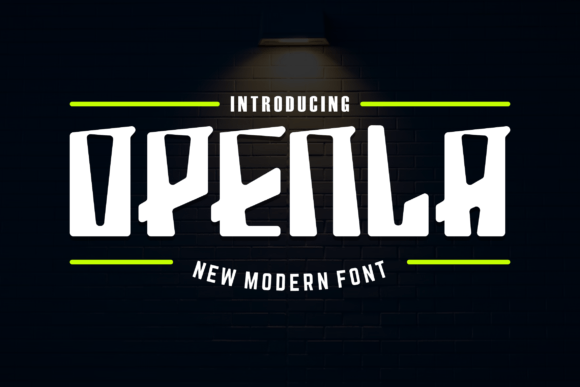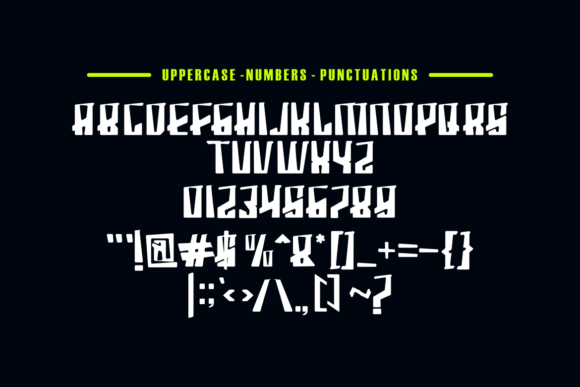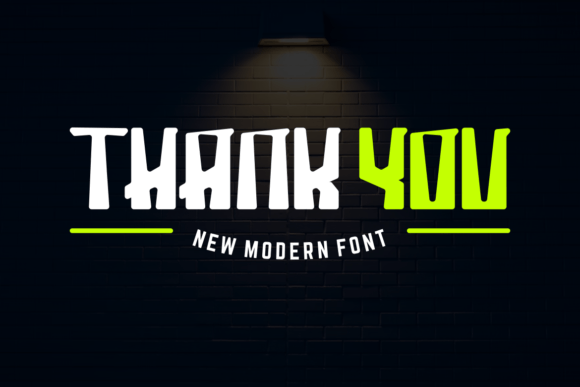
Openla
Openla: A Bold and Elegant Slab Serif Font
Openla is a bold slab serif font that combines beautiful, classy, elegant, and modern design elements. This versatile typeface is perfect for various projects, from signatures and stationery to branding and packaging design.
Key Features of Openla
• Bold Design: Offers strong, impactful letterforms.
• Elegant Style: Brings sophistication to designs.
• Modern Appeal: Features contemporary design elements.
• Versatile Application: Adapts well to numerous design contexts.
Best Uses for Openla
Thanks to its versatile characteristics, Openla works especially well for:
When using Openla in your designs, keep these tips in mind:
• Try it for headlines or display text to showcase its bold elegance.
• Use different sizes to highlight its modern features.
• Pair with simpler fonts for body text to create balance.
• Let its versatility enhance both traditional and contemporary projects.
To sum up, Openla is an excellent choice for designers seeking a bold and elegant slab serif font. Its versatility makes it perfect for a wide range of projects. Whether you’re creating wedding materials, designing logos, or developing branding packages, Openla offers the perfect blend of contemporary style and timeless sophistication.
Furthermore, Openla’s distinctive design allows it to shine in contexts where both modernity and elegance are key. For instance, from stationery to website headers, this font can elevate your projects with its refined style. Also, its bold yet classy appearance works particularly well in designs that aim to make a sophisticated impact.
In conclusion, Openla truly captures the essence of modern elegance in slab serif typography. Its versatility across different applications shows how well it can serve various creative needs. Therefore, for those wanting to add a touch of contemporary sophistication to their work, Openla can enhance any design with its unique style. Ultimately, it’s perfect for designers aiming to make an elegant, modern impact across a wide range of creative projects.